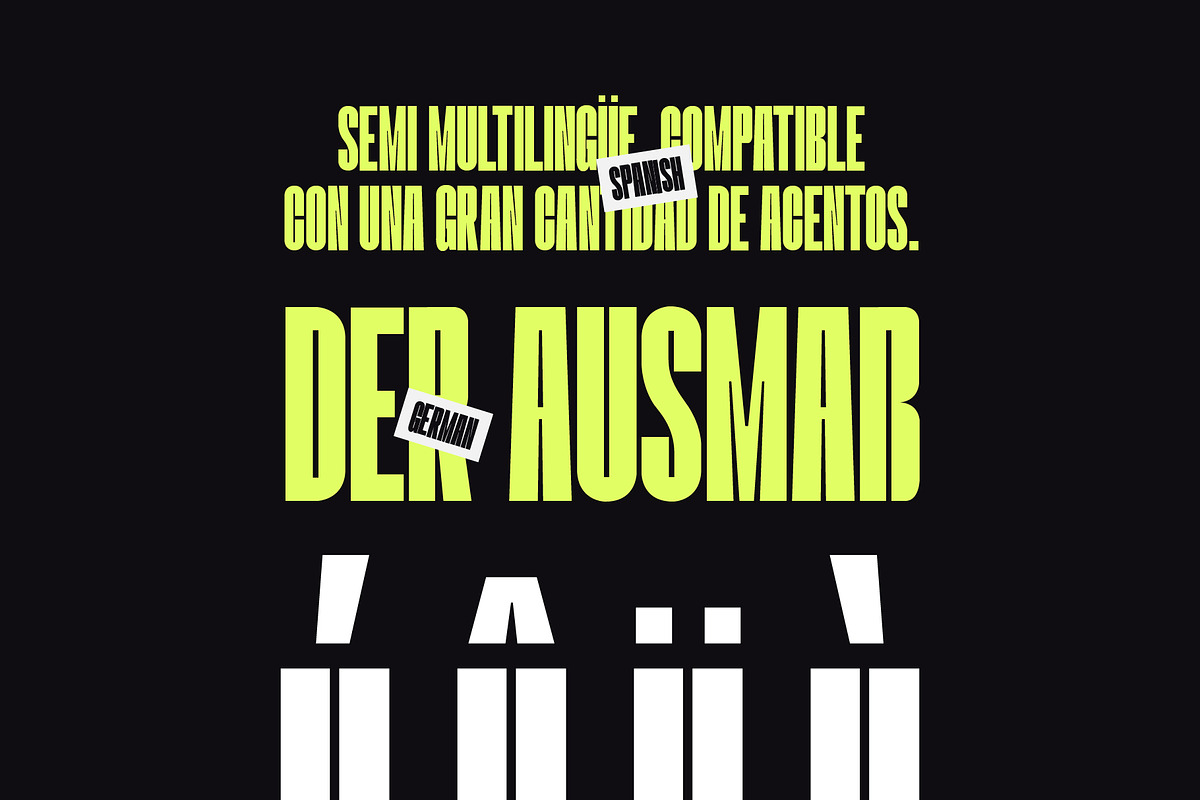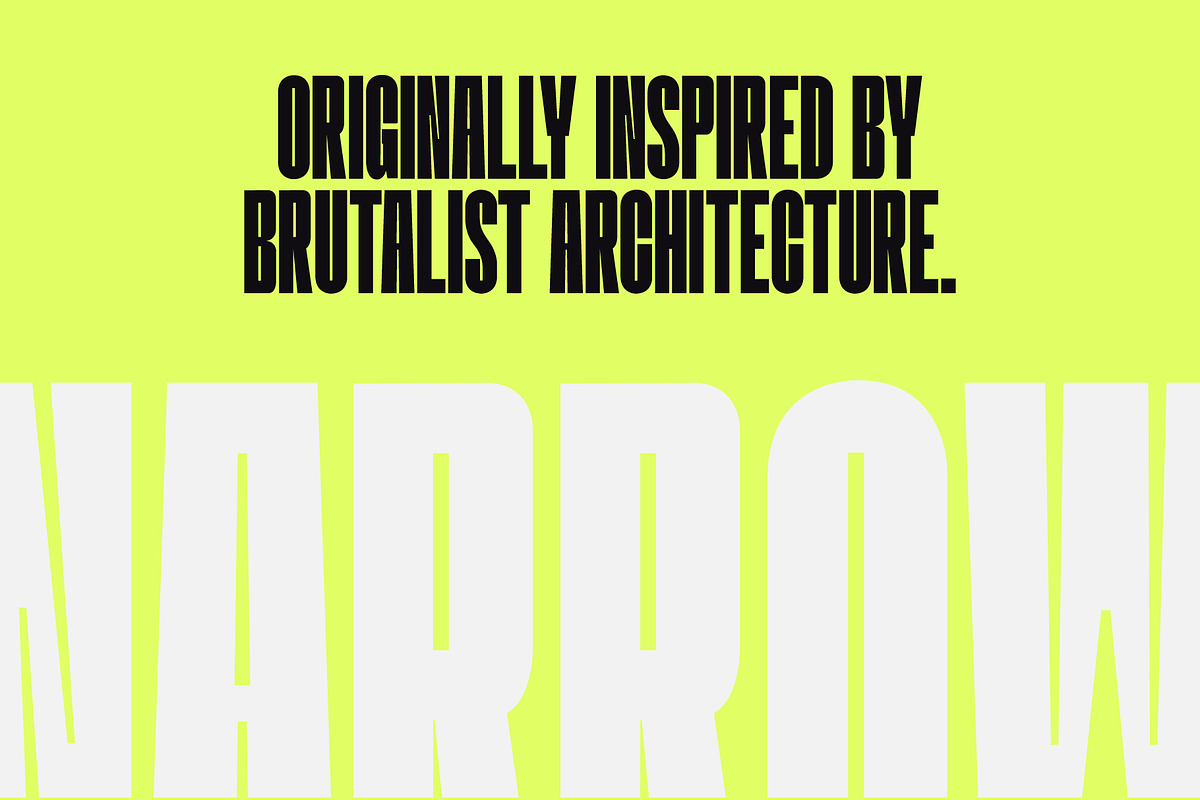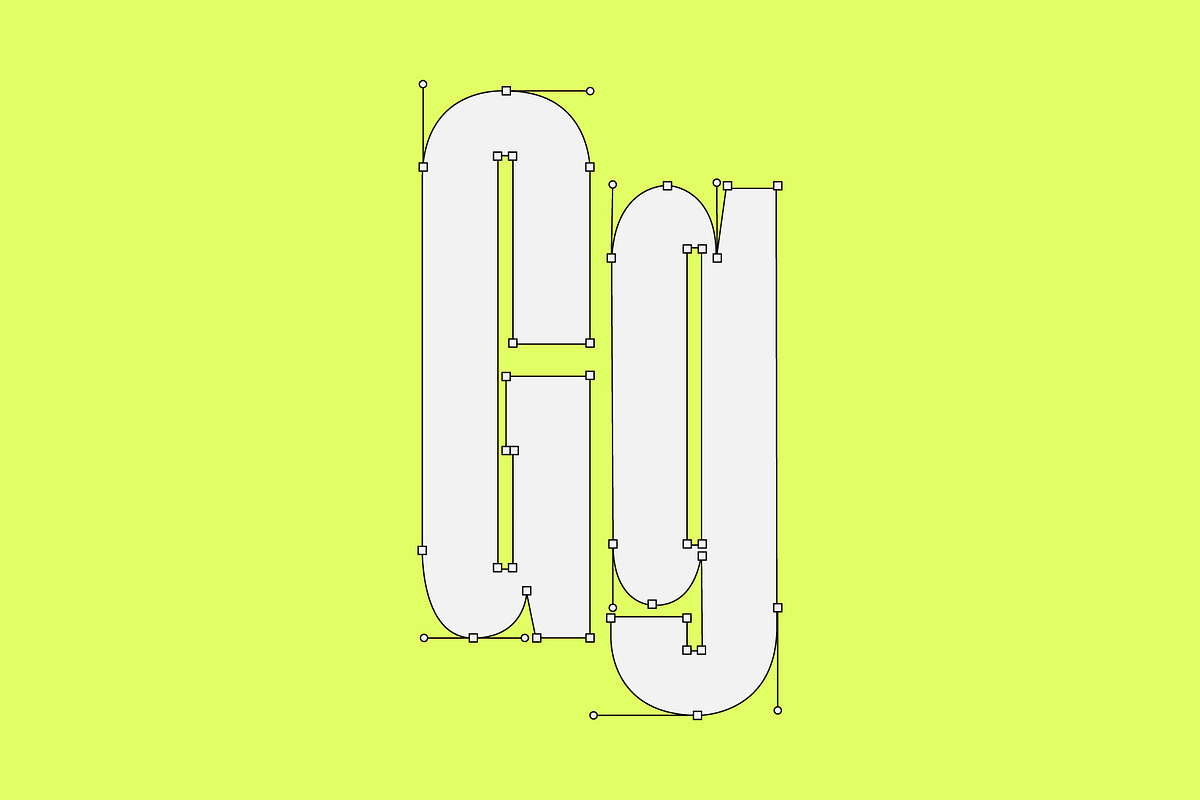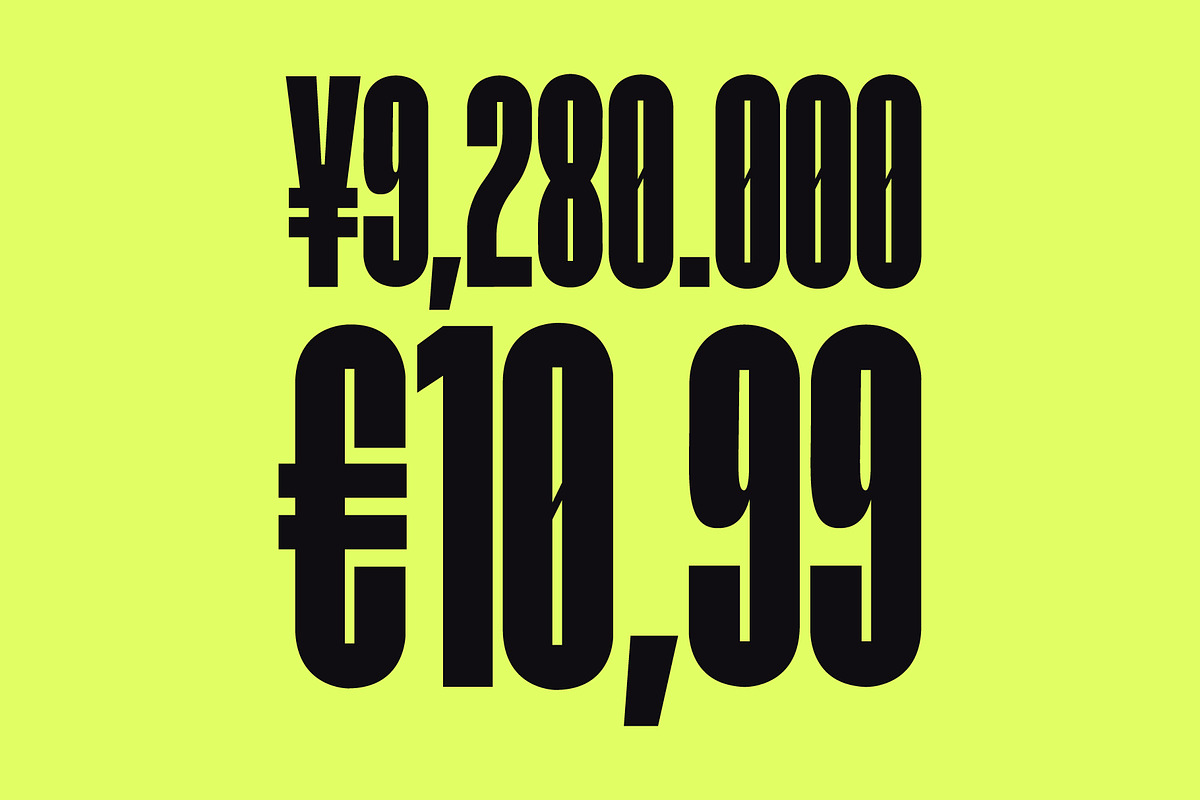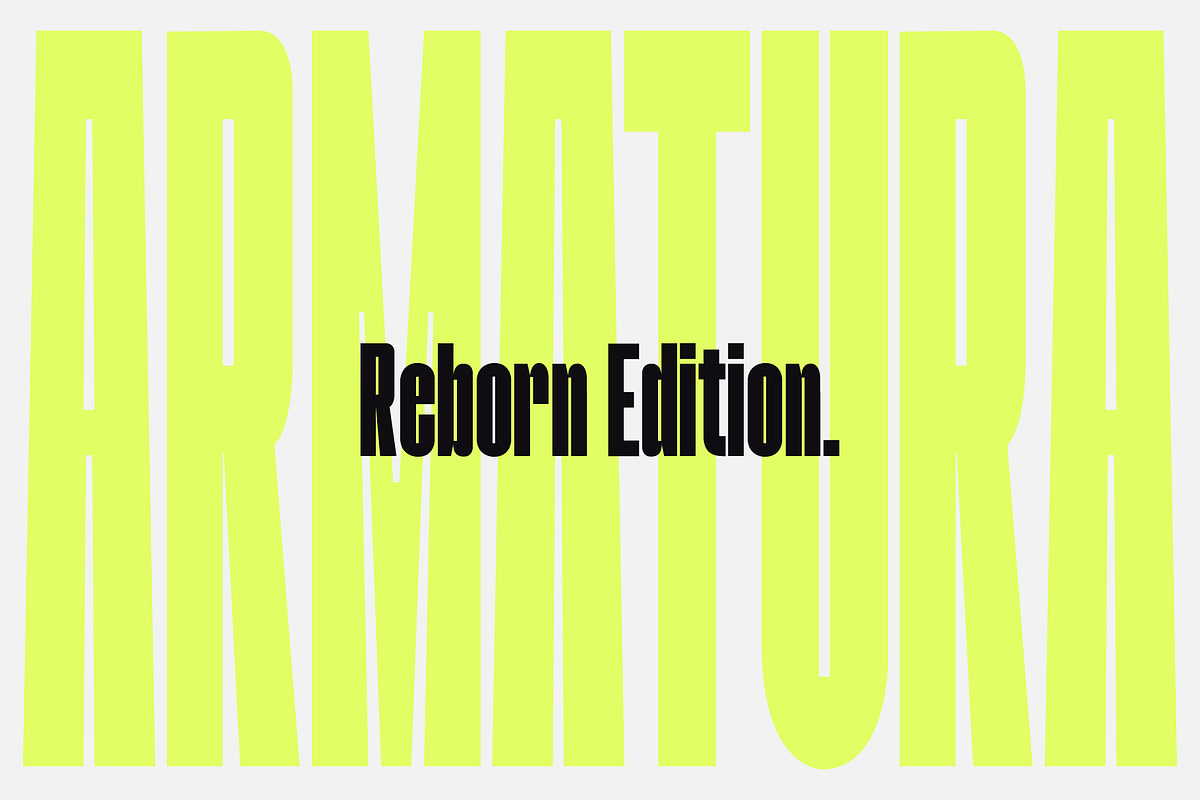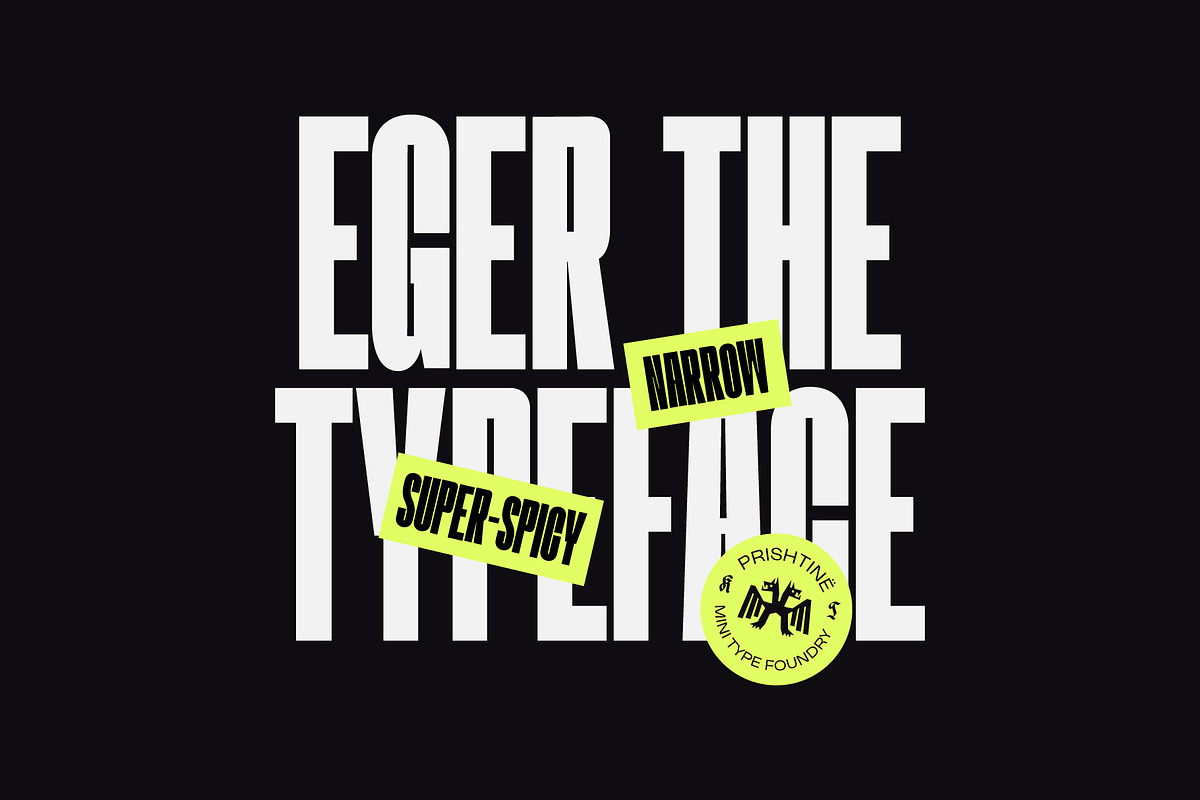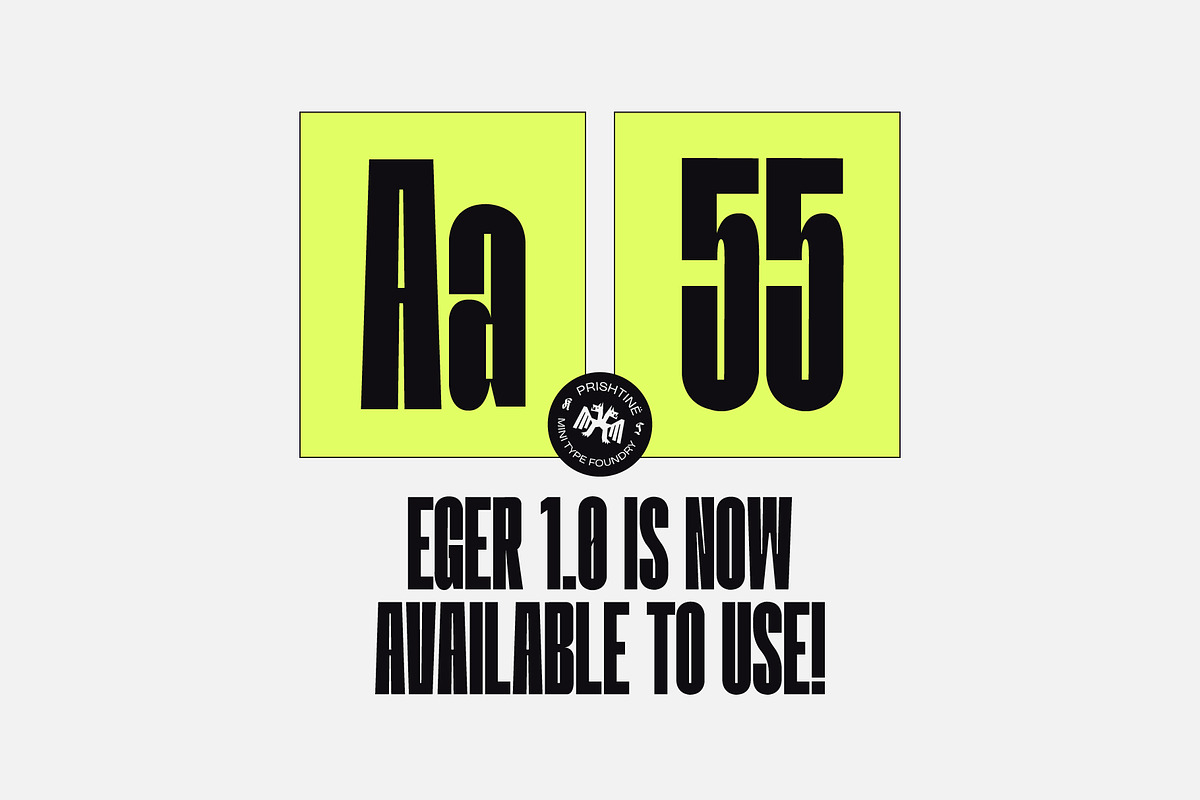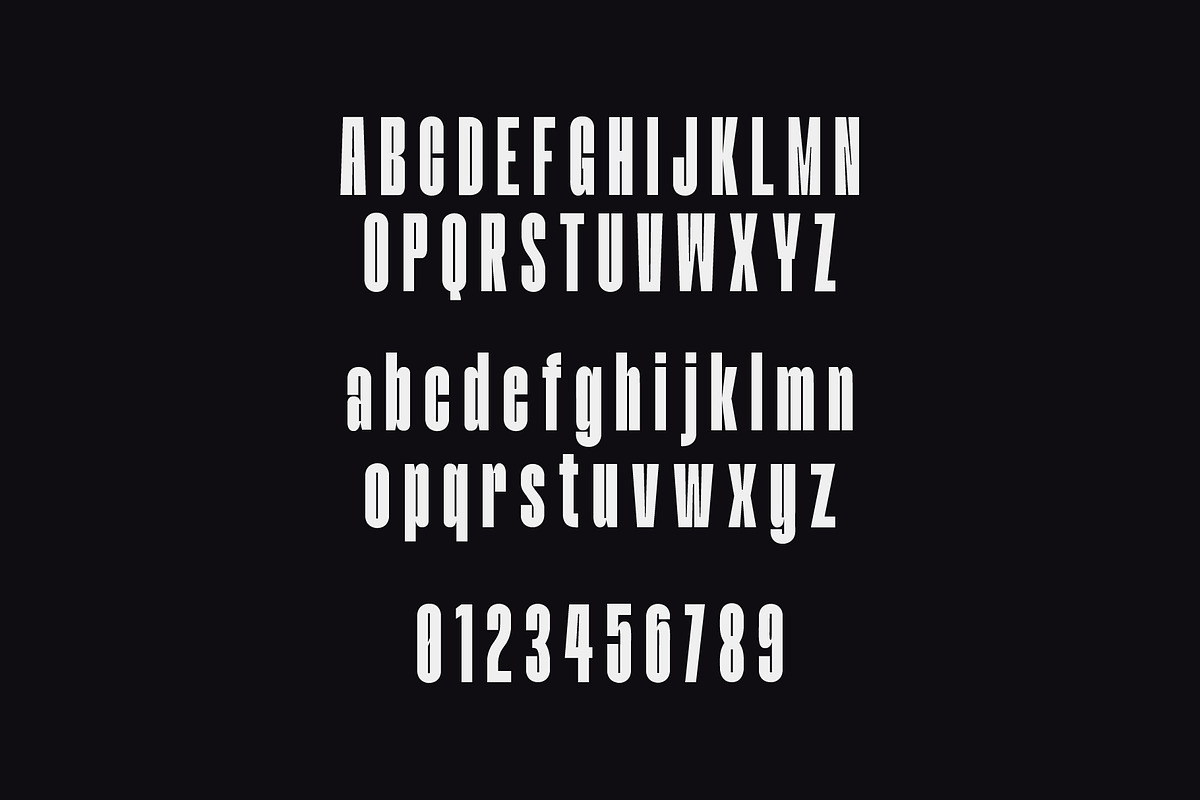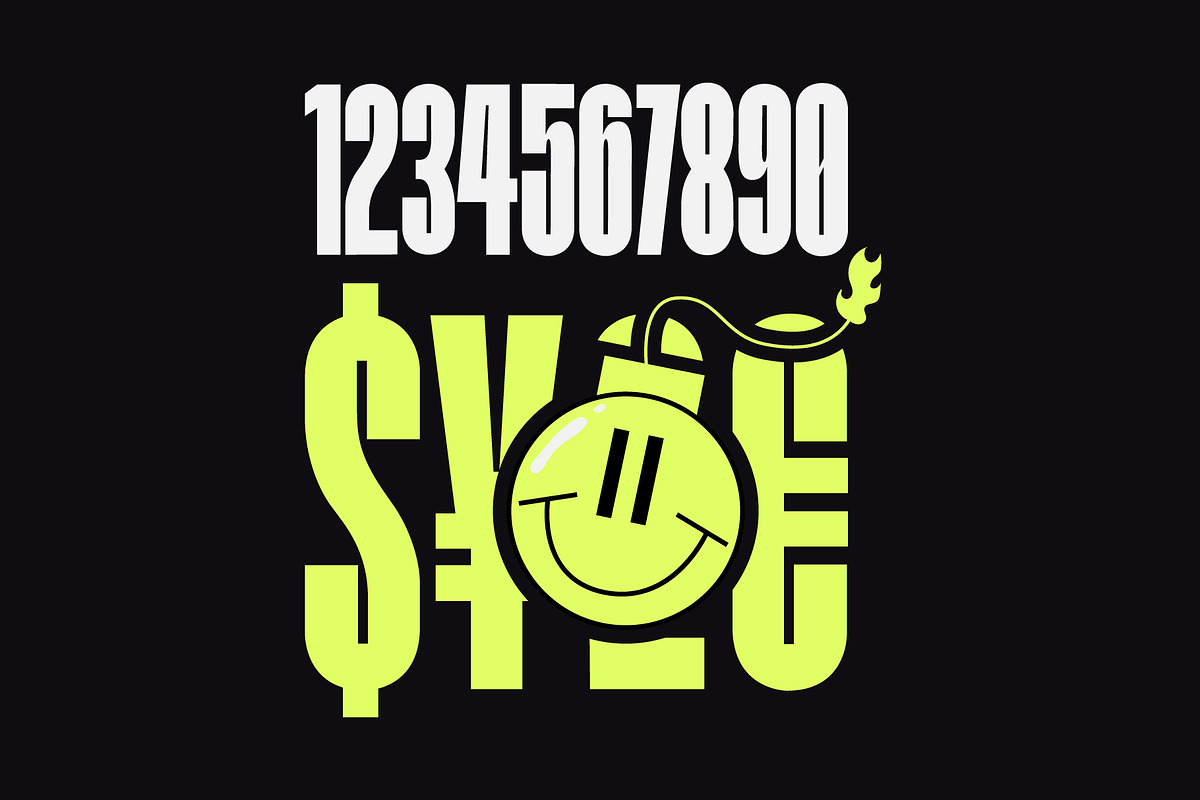
Eger 1.0 - Display Type
We're ending the year with a banger!
Introducing Eger 1.0 - A Narrow Display Type.
This year our focus was mainly giving life to old types we've worked on, it is now Armatura's time or as we call it now "Eger" or "Egër". The word means Wild in our native language.
Fits the type quite nice we say, a loud narrow piece ready for wild titles and crazy designs.
Armatura was a type piece we loved, originally inspired by Brutalist Architecture. It featured some very interesting glyphs, mainly super narrow and with extra deep inktraps. The type was released 2 years ago and drafted due to some technical errors, it has finally seen light after a long time.
This type features only 1 weight and 2 styles (Regular & Italic).